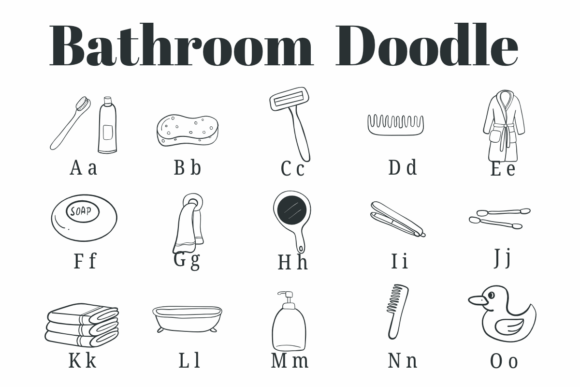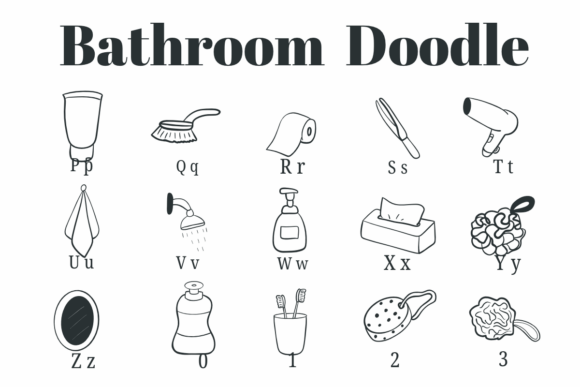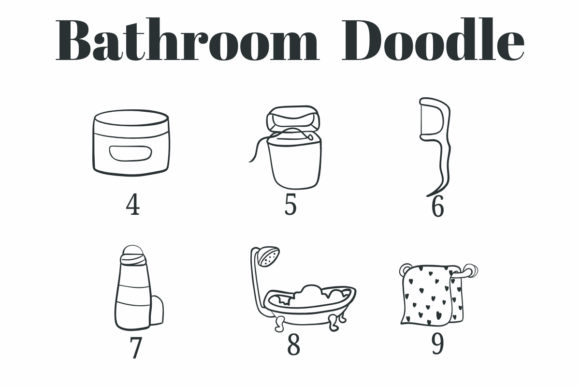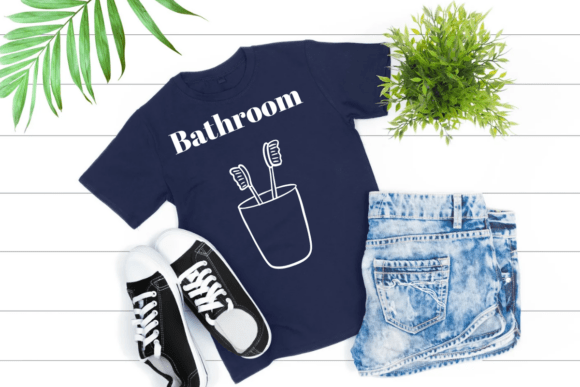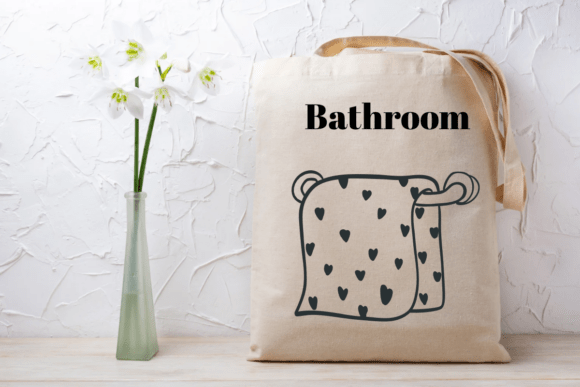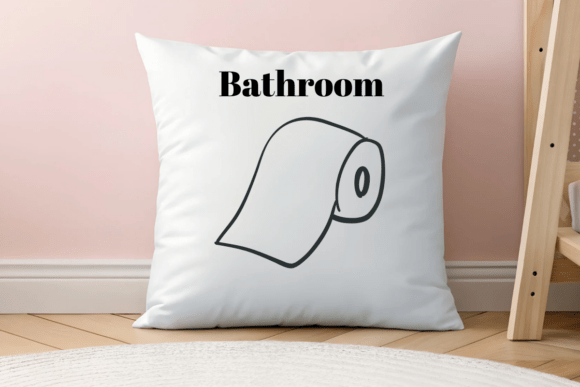
Bathroom Doodle Font: Elevate Your Creative Projects with a Sketchy Twist
Are you a designer, crafter, or DIY enthusiast looking for a unique font to add a personal touch to your projects? Look no further than the Bathroom Doodle Font, a charming dingbats font that brings a sketchy, hand-drawn feel to your creative endeavors. In this article, we’ll dive into the world of Bathroom Doodle, exploring its features, uses, and benefits, and providing you with inspiration for incorporating this versatile font into your work.
What is Bathroom Doodle Font?
Bathroom Doodle Font is a dingbats font that boasts a delightful sketch style, perfect for adding a touch of whimsy and personality to your projects. This font is designed to resemble hand-drawn doodles, with each character and symbol carefully crafted to evoke a sense of playfulness and creativity. Whether you’re working on wedding invitations, DIY crafts, decorations, logos, or any other creative project, Bathroom Doodle Font is sure to make your work stand out.
Key Features of Bathroom Doodle Font
- Sketchy style: Bathroom Doodle Font features a charming, hand-drawn aesthetic that adds a touch of warmth and personality to your projects.
- Dingbats font: This font is a dingbats font, which means it’s comprised of symbols, icons, and characters rather than traditional letters and numbers.
- Versatile: Bathroom Doodle Font can be used for a wide range of creative projects, from wedding invitations and DIY crafts to decorations, logos, and more.
Uses for Bathroom Doodle Font
Bathroom Doodle Font is an incredibly versatile font that can be used in a variety of creative projects. Here are some ideas to get you started:
- Wedding invitations: Add a touch of whimsy and romance to your wedding invitations with Bathroom Doodle Font.
- DIY crafts: Use this font to create custom labels, tags, and decorations for your DIY crafts.
- Decorations: Bathroom Doodle Font is perfect for creating custom signs, banners, and decorations for parties, events, and everyday decor.
- Logos: Use this font to create unique and memorable logos for your business or brand.
- Stationery: Add a personal touch to your stationery, including greeting cards, thank-you cards, and more.
Benefits of Using Bathroom Doodle Font
So why choose Bathroom Doodle Font for your creative projects? Here are just a few benefits:
- Unique and eye-catching: This font is sure to make your projects stand out with its unique, hand-drawn aesthetic.
- Versatile: This font can be used for a wide range of creative projects, making it a great addition to your design toolkit.
- Time-saving: With Bathroom Doodle Font, you can create professional-looking projects in no time, saving you time and effort.
Tips for Using Bathroom Doodle Font
To get the most out of Bathroom Doodle Font, here are a few tips:
- Experiment with different sizes and colors: Play around with different sizes and colors to find the perfect combination for your project.
- Mix and match with other fonts: Combine Bathroom Doodle Font with other fonts to create a unique and visually appealing design.
- Use it sparingly: Use Bathroom Doodle Font sparingly to add a touch of personality to your project, rather than overwhelming it.
Bathroom Doodle Font is a versatile and charming dingbats font that’s perfect for adding a touch of whimsy and personality to your creative projects. With its sketchy style, ease of use, and versatility, this font is sure to become a staple in your design toolkit. Whether you’re a designer, crafter, or DIY enthusiast, Bathroom Doodle Font is a great choice for anyone looking to elevate their creative projects.